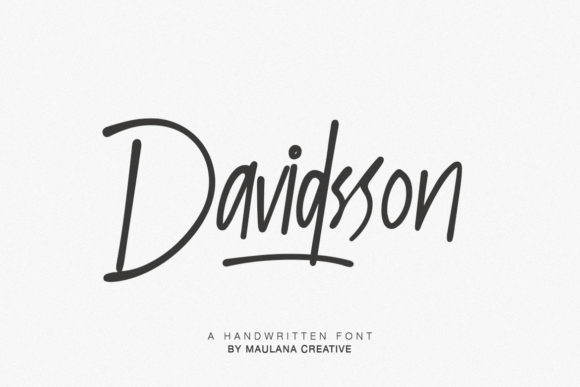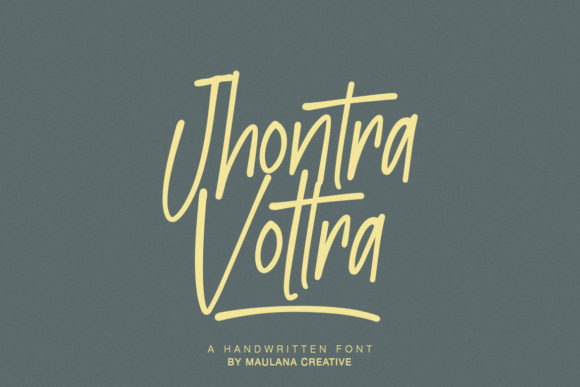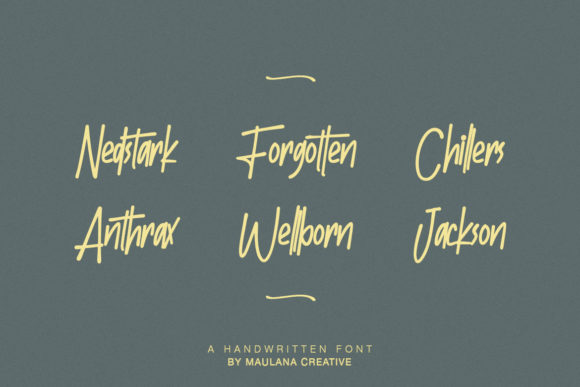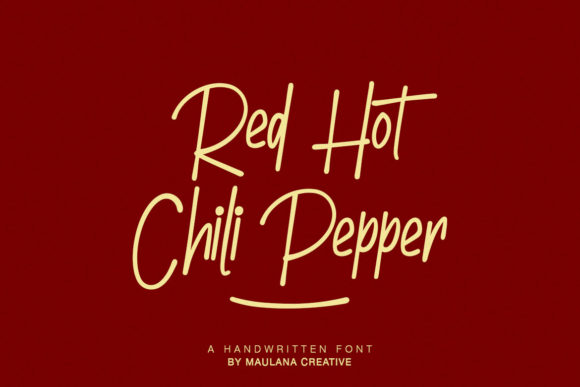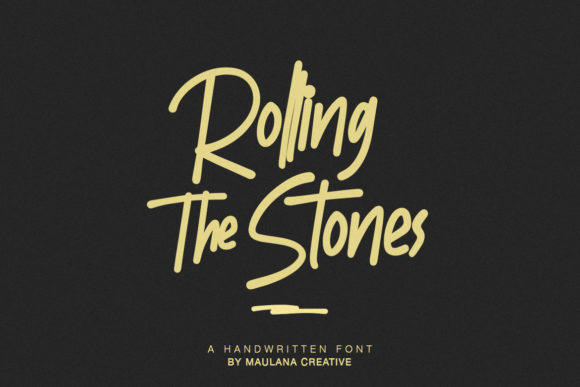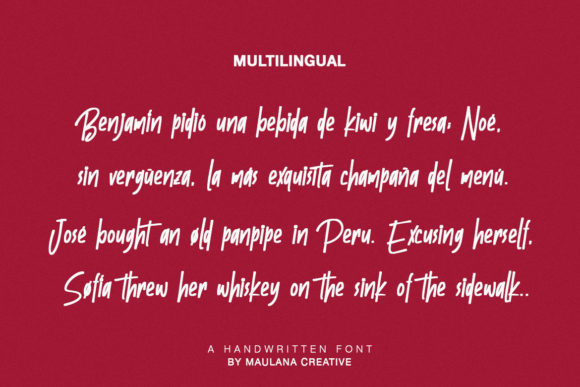
Batllers Font: Add a Touch of Handcrafted Charm to Your Designs
Batllers is an exciting display font that gives your designs an authentic handcrafted feel! If you’re a designer or crafter looking for a unique and eye-catching font to elevate your projects, Batllers is an excellent choice. In this article, we’ll explore the features and benefits of Batllers Font and how it can add a touch of personality to your designs.
The Charm of Handcrafted Typography
In today’s digital age, it’s easy to get lost in the sea of generic, computer-generated fonts. But if you’re looking to add a touch of warmth and personality to your designs, handcrafted typography is the way to go. Batllers Font is a beautiful example of handcrafted typography, with its unique imperfections and characterful strokes. Each letter has been carefully crafted to give your designs a sense of authenticity and human touch.
Features of Batllers Font
Batllers Font is a display font that boasts a range of exciting features, including:
- Unique letterforms: Each letter in Batllers has been carefully designed to give your designs a distinctive look.
- Handcrafted feel: The font has a beautifully handcrafted feel, with subtle imperfections that give it a sense of authenticity.
- High-quality design: Batllers has been designed with high-quality printing and digital display in mind, making it perfect for a range of applications.
Benefits of Using Batllers Font
So why choose Batllers Font for your designs? Here are just a few benefits:
- Adds personality: Batllers Font adds a touch of personality to your designs, setting them apart from the generic and bland.
- Perfect for crafty projects: If you’re working on crafty projects, such as handmade cards or DIY tutorials, Batllers is a perfect choice.
- Easy to read: Despite its handcrafted feel, Batllers is surprisingly easy to read, making it perfect for headlines and titles.
Using Batllers Font in Your Designs
So how can you use Batllers Font in your designs? Here are a few ideas:
- Headlines and titles: Use Batllers to add a touch of personality to your headlines and titles.
- Handmade crafts: Batllers is perfect for handmade crafts, such as card making, scrapbooking, and DIY tutorials.
- Branding and packaging: Use Batllers to add a touch of authenticity to your branding and packaging.
Tips and Tricks for Getting the Most Out of Batllers Font
Here are a few tips and tricks for getting the most out of Batllers Font:
- Experiment with colors: Batllers looks great in a range of colors, so don’t be afraid to experiment and find the perfect hue for your design.
- Mix and match: Try mixing and matching Batllers with other fonts to create a unique and eye-catching look.
- Pay attention to spacing: Make sure to pay attention to spacing when using Batllers, as the handcrafted feel can sometimes make it tricky to read.
Batllers Font is an exciting display font that gives your designs an authentic handcrafted feel. With its unique letterforms, handcrafted feel, and high-quality design, Batllers is perfect for designers and crafters looking to add a touch of personality to their projects. Whether you’re working on headlines and titles, handmade crafts, or branding and packaging, Batllers is a great choice. So why not give Batllers a try and see how it can elevate your designs?